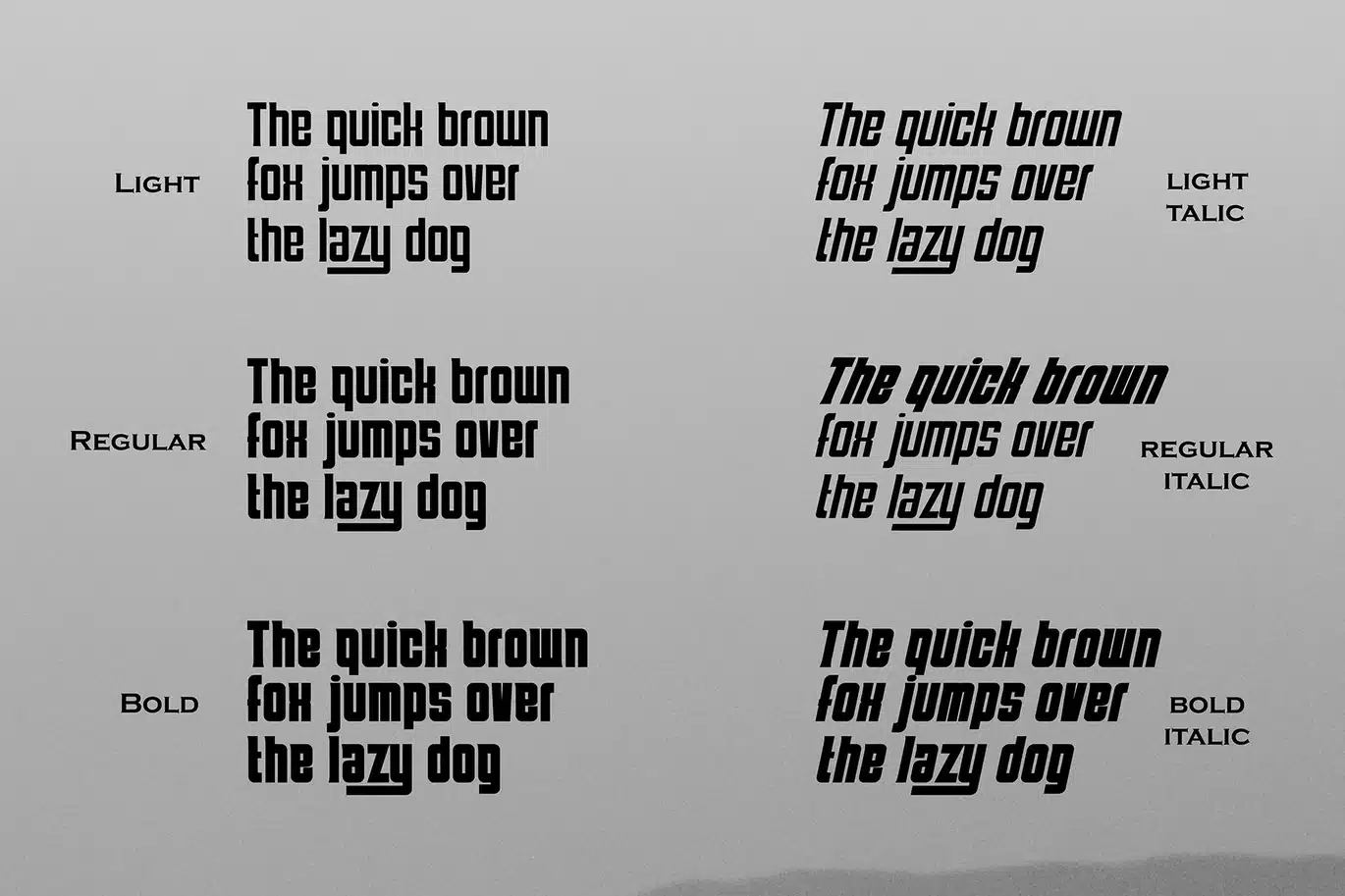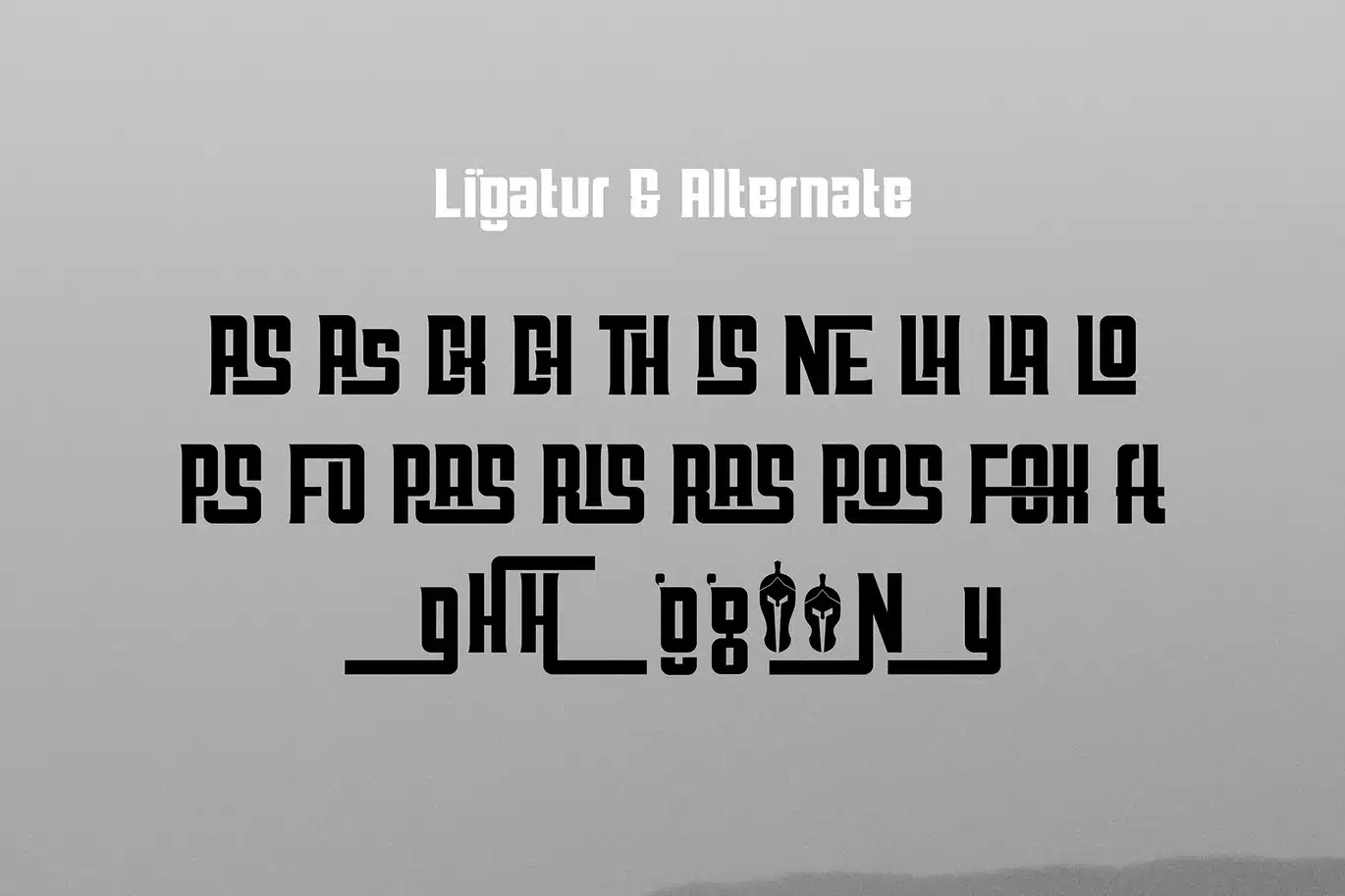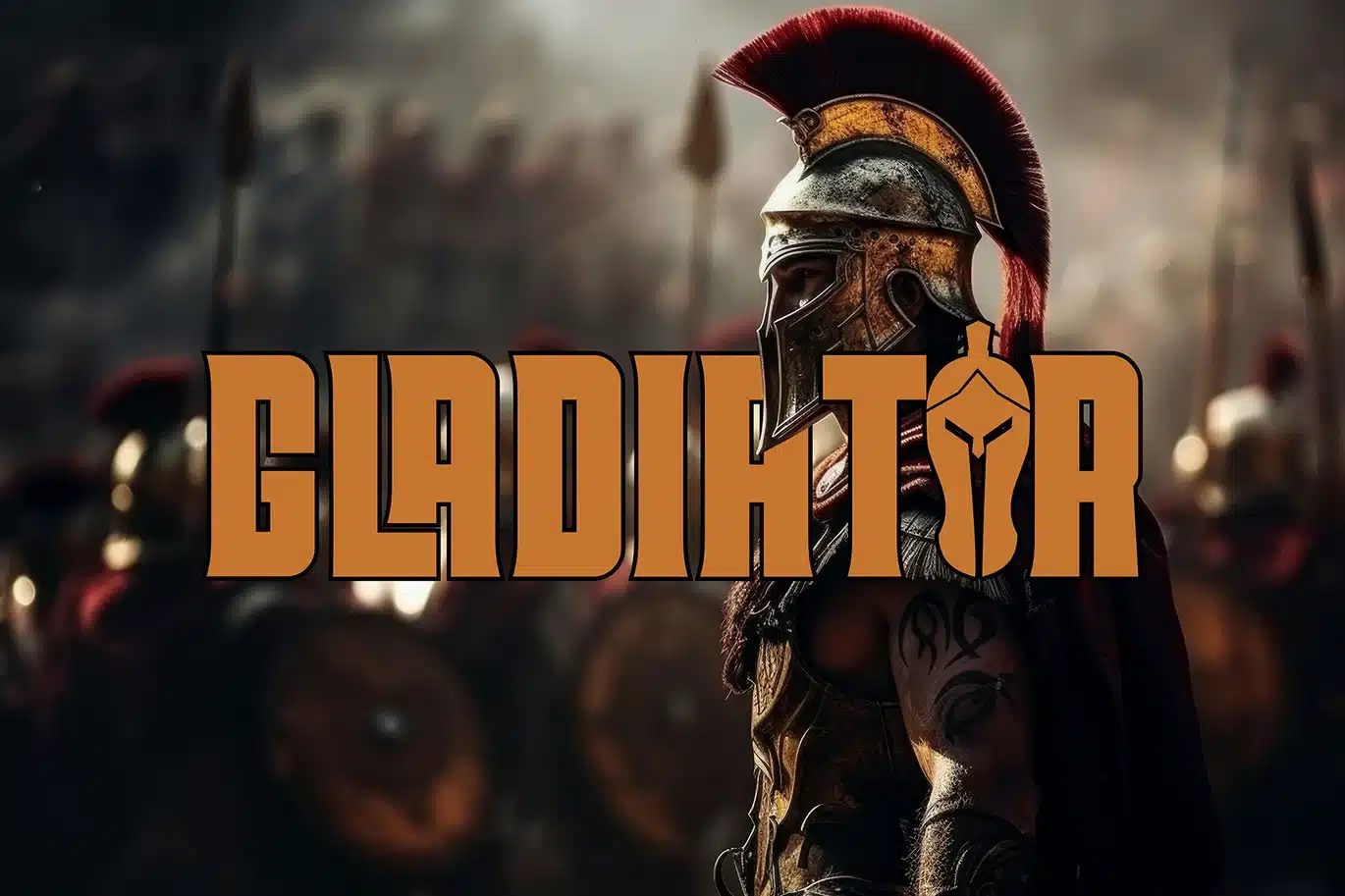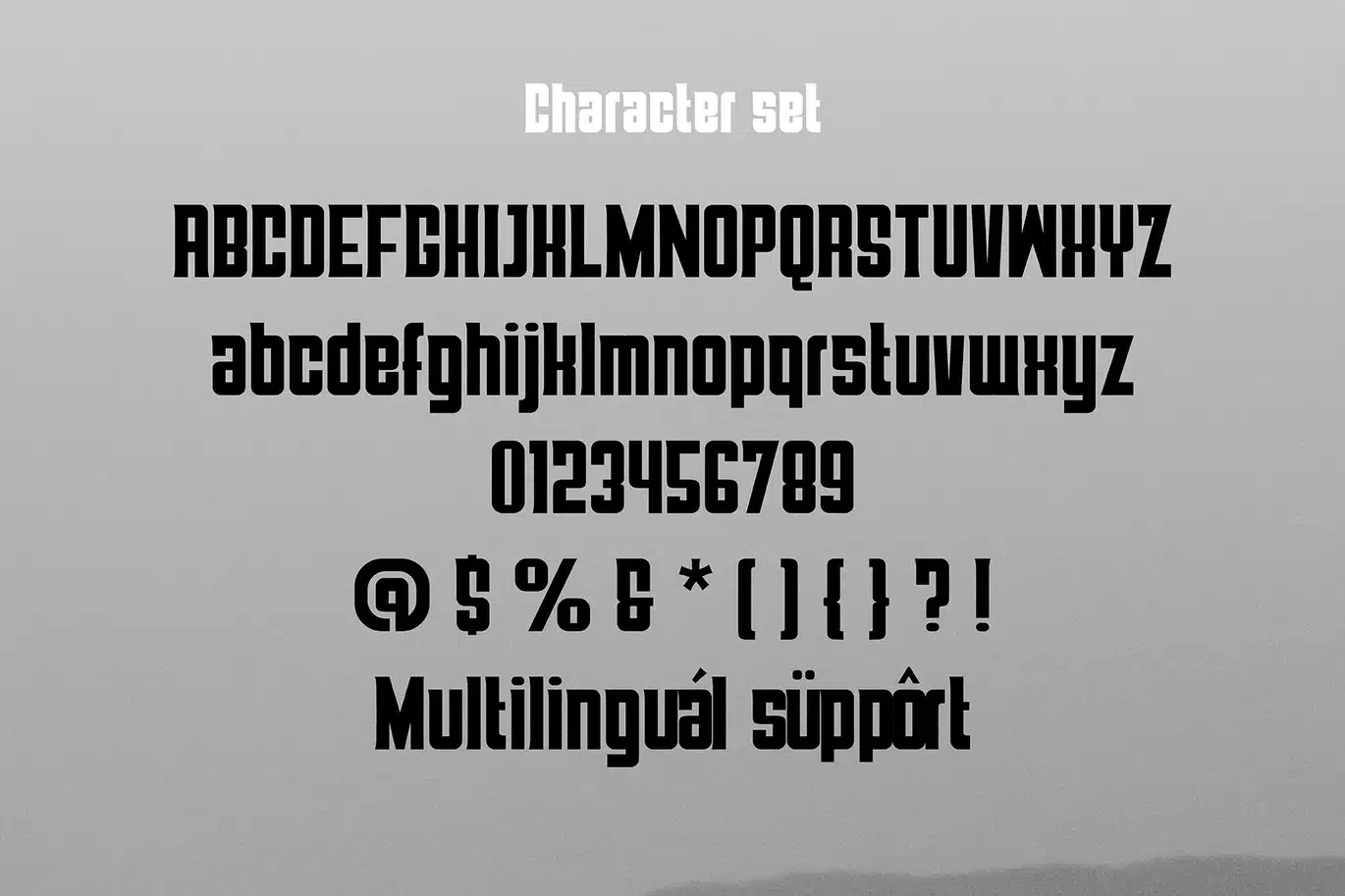
The Horison – Modern Logo Font
The Horison – Modern Logo Font is a clean and structured typeface designed for clarity, consistency, and strong visual communication. Built with a modern approach, this font works effectively across logo creation, branding systems, editorial layouts, and digital interfaces.
With both uppercase and lowercase characters, The Horison gives you flexibility to create balanced typography compositions. Its carefully crafted letterforms allow smooth readability while maintaining a distinct and confident tone. The addition of ligatures and alternates enhances the overall flow, helping designers achieve more refined and cohesive results without extra effort.
The Horison is suitable for a wide range of design needs including company identities, website headers, presentation titles, packaging layouts, and advertising materials. Its clean structure allows it to integrate easily into both minimal and complex design systems.
Key Features
- Uppercase & Lowercase Characters for flexible typography composition
- Ligatures & Alternates to improve visual flow and letter combinations
- Multilingual Support for broader language coverage
- Multiple Weights including Light, Regular, and Bold, with matching Italics
- Modern Logo Style suitable for identity design and structured layouts
- Consistent Letterforms for readability across different sizes
Why Designers Love It
Designers choose The Horison for its balance between function and form. The availability of multiple weights and italics allows easy hierarchy building in layouts, from headlines to supporting text.
The ligatures and alternates provide additional control over typography styling, making it easier to create distinctive logotypes and refined wordmarks. This reduces the need for manual adjustments while maintaining consistency.
Its multilingual capability makes it suitable for international projects, while the clean sans serif construction ensures it performs well across both digital and print media. The Horison adapts easily to various design directions without losing its clarity.